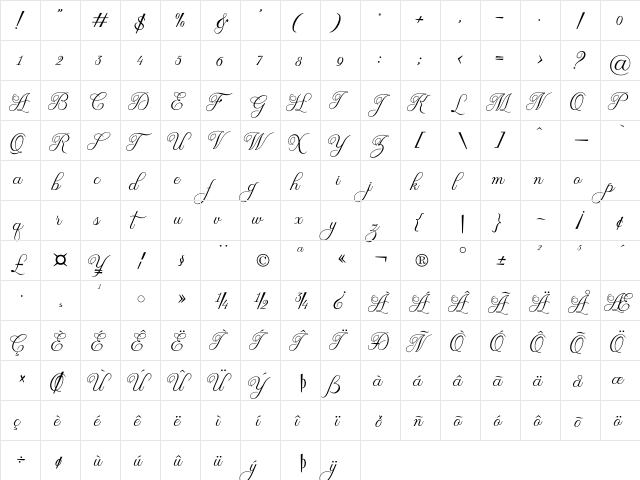
Olivia Regular
Design Context for Olivia Typeface
Olivia is a composed and adaptable typeface that performs quietly and consistently across a wide range of design contexts.